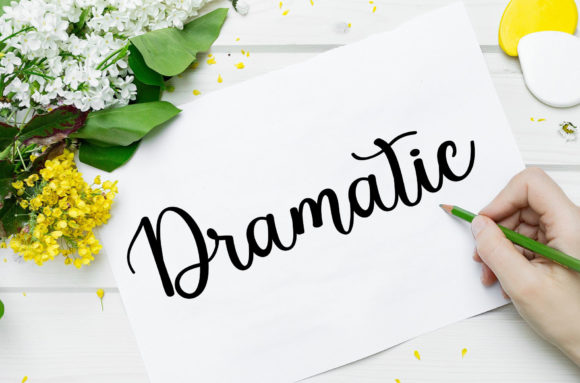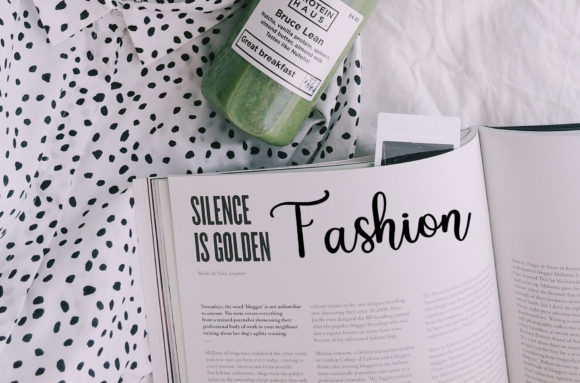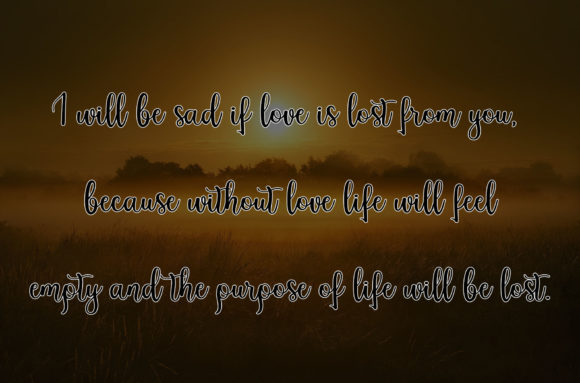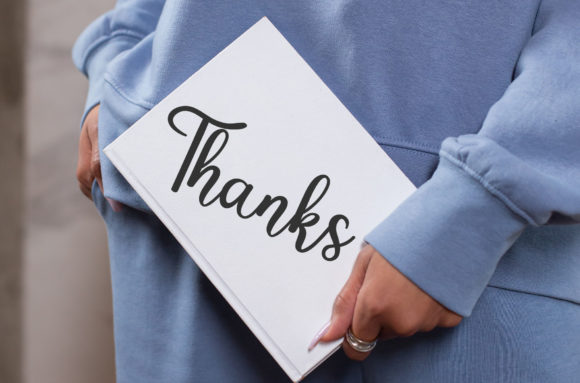
Introducing Cometime Font: Adding a Touch of Whimsy to Your Designs
Are you tired of using the same old fonts in your design projects? Look no further than Cometime Font, a sweet, whimsical, fluid, and thin script font that’s sure to add a beautiful spark to any design you create. With its unique characters dancing along a baseline, Cometime Font is the perfect choice for designers and crafters looking to add a touch of personality to their work.
The Characteristics of Cometime Font
Cometime Font is a script font that boasts a range of characteristics that make it truly special. Its sweet and whimsical design makes it perfect for projects that require a touch of playfulness, while its fluid and thin lines ensure that it remains elegant and sophisticated. The font’s characters are designed to dance along a baseline, creating a sense of movement and energy that’s sure to capture the attention of your audience.
What Makes Cometime Font So Versatile?
One of the things that sets Cometime Font apart from other fonts is its versatility. Whether you’re working on a branding project, a website design, or a craft project, Cometime Font is the perfect choice. Its elegant and sophisticated design makes it suitable for a wide range of applications, from formal invitations to social media graphics. Plus, its unique and playful design ensures that it will stand out from the crowd and leave a lasting impression on your audience.
How to Use Cometime Font in Your Design Projects
Using Cometime Font in your design projects is easy. Here are a few tips to get you started:
- Pair it with bold fonts: Cometime Font pairs perfectly with bold fonts, creating a striking contrast that’s sure to make your design stand out.
- Use it for headings: Cometime Font is perfect for headings and titles, adding a touch of elegance and sophistication to your design.
- Experiment with colors: Cometime Font looks great in a range of colors, from bold and bright to soft and pastel.
The Benefits of Using Cometime Font
There are many benefits to using Cometime Font in your design projects. Here are just a few:
- Adds a touch of personality: Cometime Font is a unique and playful font that’s sure to add a touch of personality to your design.
- Versatile: Cometime Font is suitable for a wide range of applications, from formal invitations to social media graphics.
- Elegant and sophisticated: Despite its playful design, Cometime Font remains elegant and sophisticated, making it perfect for projects that require a touch of class.
Cometime Font in the World of Crafting
Cometime Font is not just limited to digital design projects. It’s also a great choice for crafters who love to work with paper, fabric, and other materials. Whether you’re creating handmade cards, scrapbooking pages, or other craft projects, Cometime Font is the perfect choice. Its elegant and sophisticated design makes it perfect for projects that require a touch of class, while its playful and whimsical design ensures that it will add a touch of personality to your craft.
In conclusion, Cometime Font is a sweet, whimsical, fluid, and thin script font that’s sure to add a beautiful spark to any design project you create. With its unique characters dancing along a baseline, Cometime Font is the perfect choice for designers and crafters looking to add a touch of personality to their work. Whether you’re working on a branding project, a website design, or a craft project, Cometime Font is the perfect choice. So why not give it a try and see the difference it can make?